12 fun font combinations that will make your social media graphics pop
Time to spruce up your social media graphics!
You want to attract more clicks, more comments and more shares on your social media post, right? The first step is super simple: Create an eye-catching graphic and make it even more interesting by mixing it up with fab fonts.
Here’s a variety of free downloadable fonts you can use for your next social media graphic. I’ve also included examples for ideas and inspiration.
Have fun!
12 Free Awesome Font Combinations
1. Libby & Futura
These two are definitely my most favorites and I use them all the time. I love the “clean” and “sleek” look on them. And oh, they’re super easy to read!
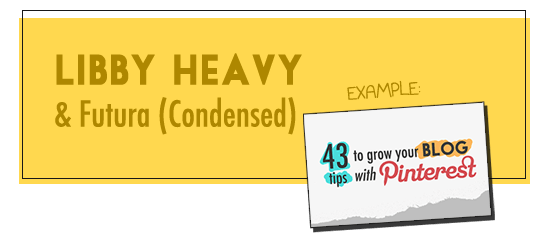
2. KG Defying Gravity
KG Defying Gravity – such a long name, but it’s my new favorite font. I love how I can change the look into a bouncy one using alternating lowercase and uppercase. Click on the download link below to see what I’m talking about!
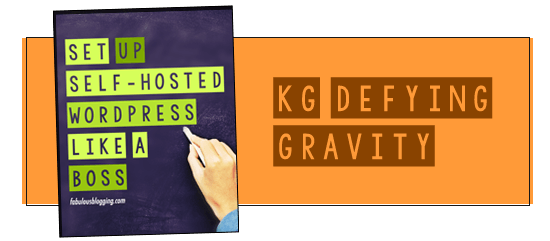
3. Halo Handletter & Lane A
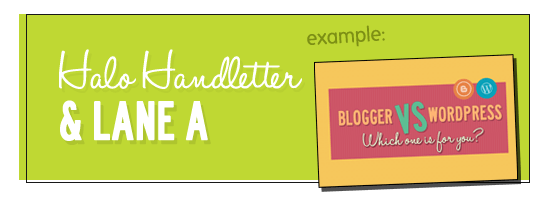
4. Folks & KG Love You Through It
If you want to sprinkle some girly style on your graphic, pair any san serif font (like Folks) with KG Love You Through It font.
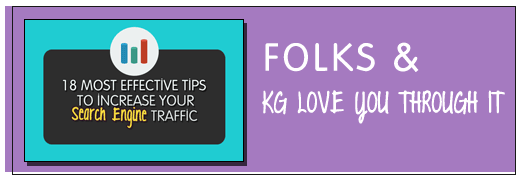
5. Secret Code & Lobster
Lobster font – found this on Canva and fell in love with this font. Looking super classy!
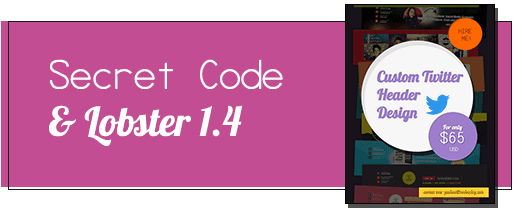
6. Octin SprayPaint & Satisfy
Looking for a beautiful readable cursive font? “SATISFY” font will absolutely satisfy your need. Enhance your graphic with a kinda-gothic looking font called “Octin SprayPaint”.
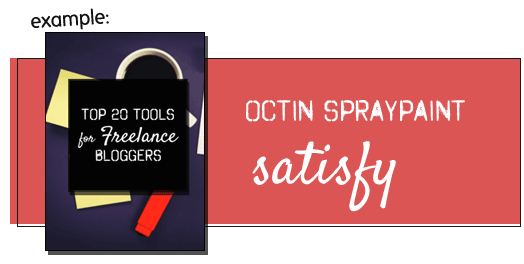
7. Nova, Satisfy & Scribble Box
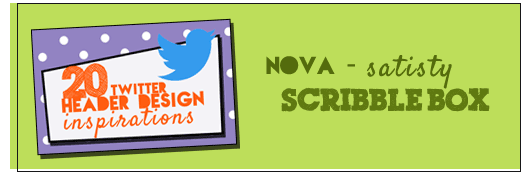
8. Dear Joe Four, One Direction & Bebas
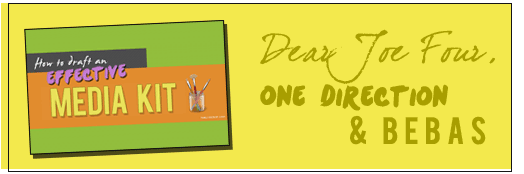
9. Simply Glamorous & Text Me One
While Text Me One looks nice and easy to eyes, I love Simply Glamorous’ elegant look. It adds some spice on the graphic so it won’t look too simple. But make sure to use a big font size for “Simply Glamorous”, otherwise people will have a hard time reading your graphic.
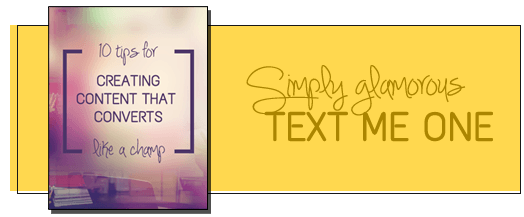
10. Urban Sketch & Handwriting
11. Claire Hand & Brush Script
12. Green Surf & Linowrite